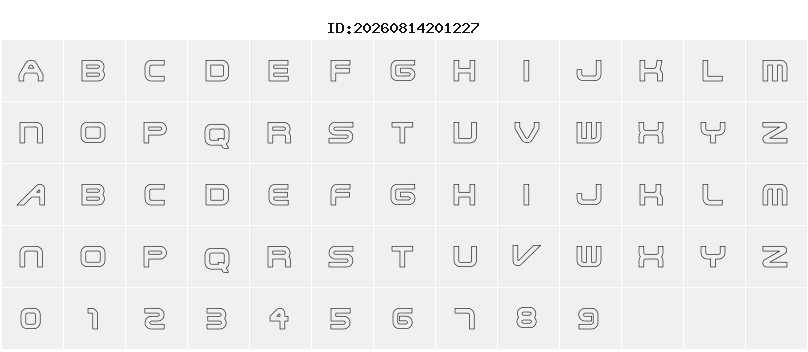
Steel Hollow Preview
• Font Name: Steel Hollow
• Full Font Name: Steel Hollow
About Steel Hollow.ttf
Steel Hollow.ttf is a modern, elegant sans-serif font designed for ultimate readability and visual harmony. Perfect for branding, headlines, web design, and print materials.